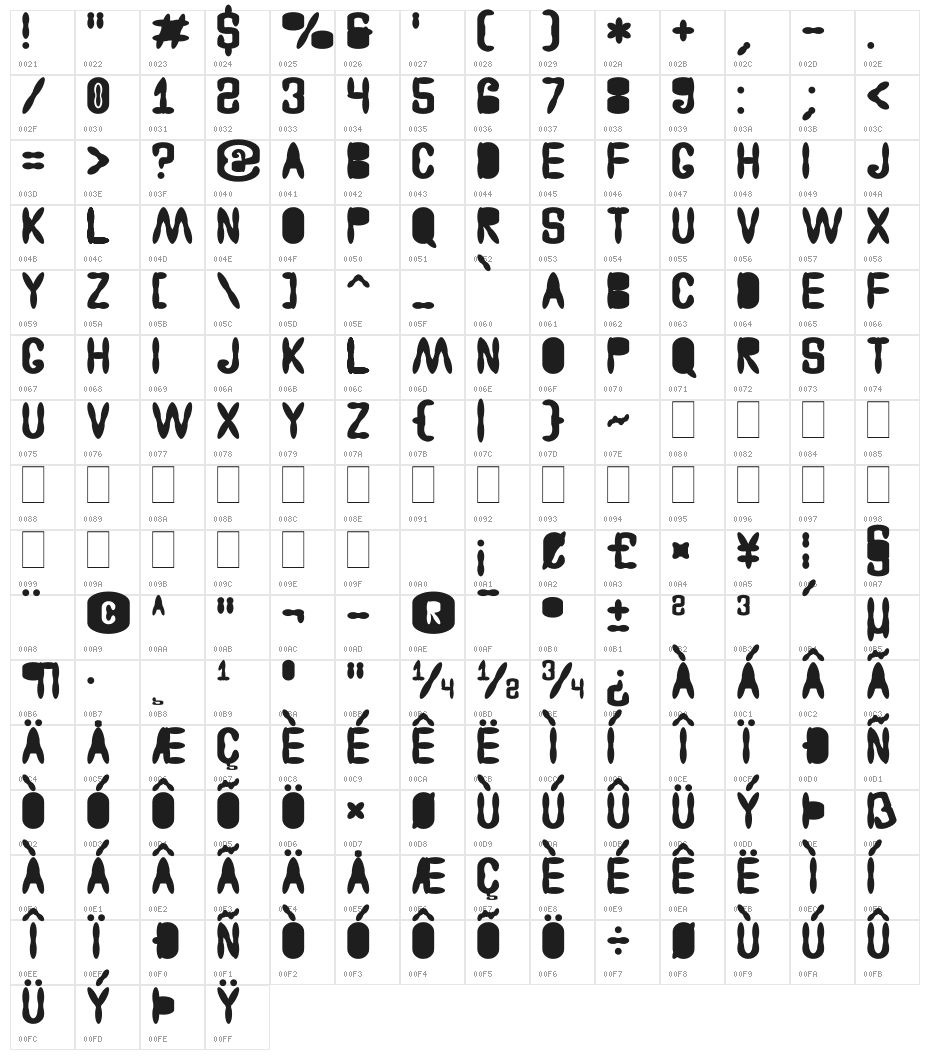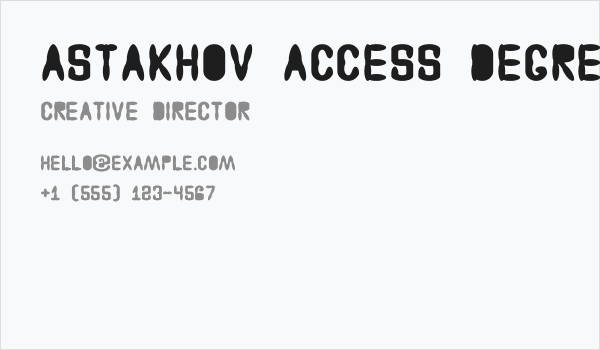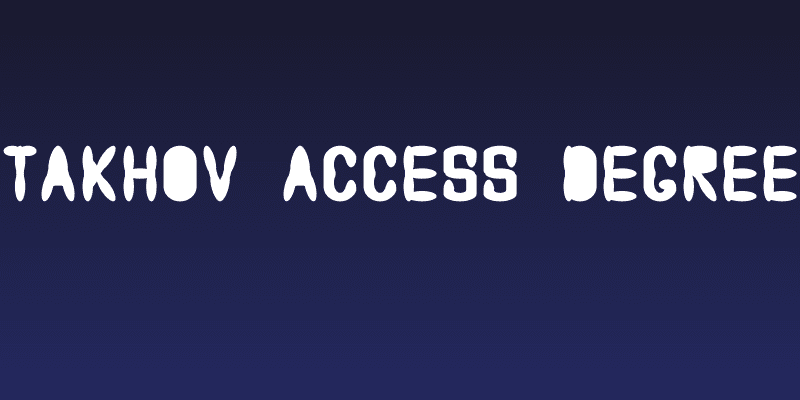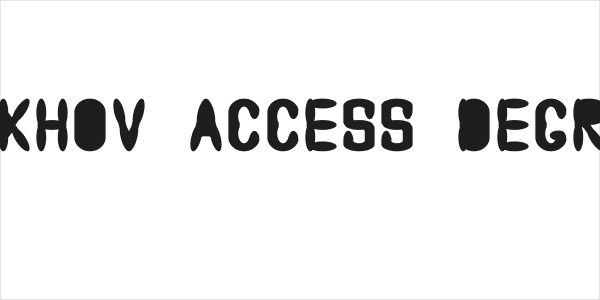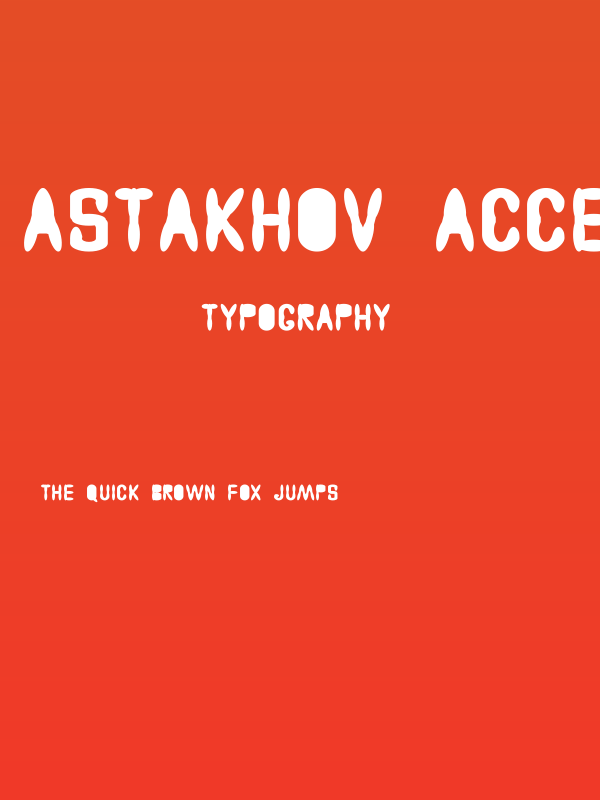
Astakhov Access Degree F Font
Astakhov Access Degree F Description
This font features a bold and playful design with a unique, organic appearance. The characters are rounded and have a slightly irregular shape, giving them a hand-drawn feel. The boldness of the letters makes them stand out, while the rounded edges add a touch of softness. The font is highly decorative, making it suitable for eye-catching designs. The numbers and special characters maintain the same playful style, ensuring consistency across all elements. This font is ideal for projects that require a fun and engaging look.
| Overall Style | Playful, Decorative |
| Proposed Projects | Ideal for children's books, playful branding, posters, and creative projects that require a fun and engaging style. |